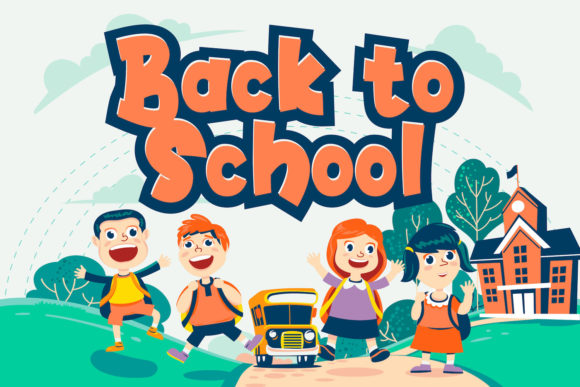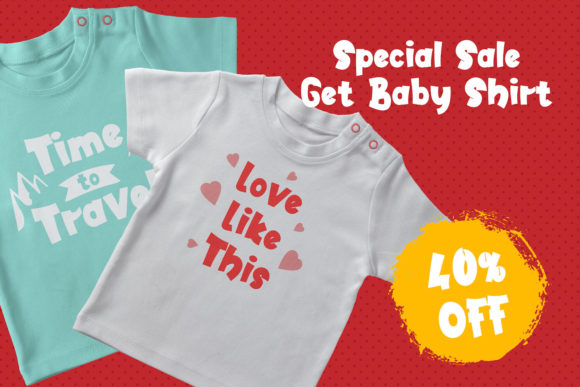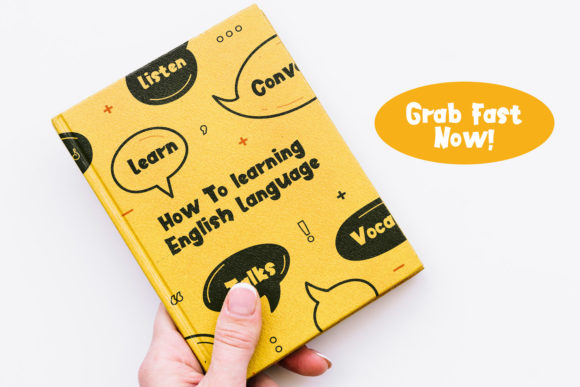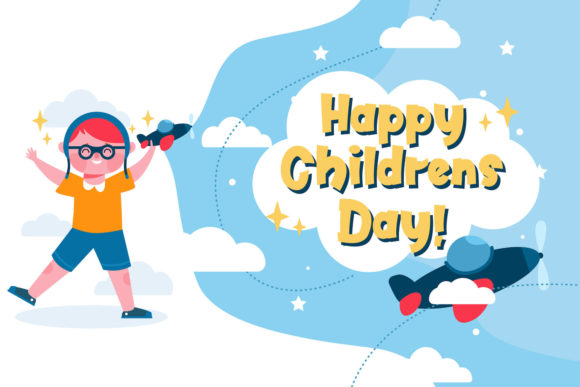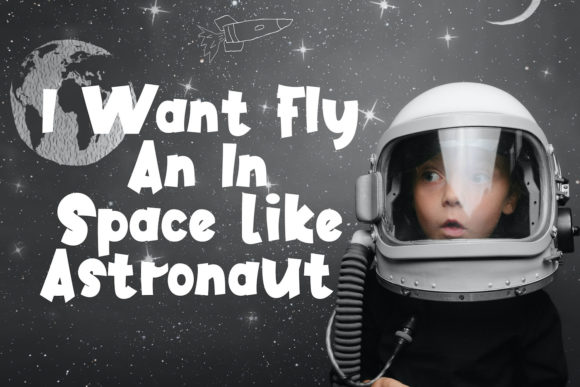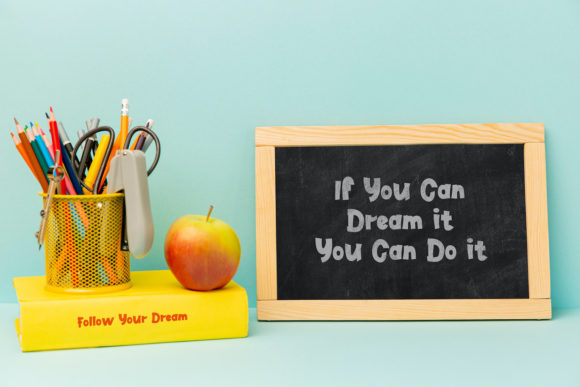
Introducing Amazing Kids Font: The Ultimate Display Font for Joyful Designs
Are you tired of using the same old fonts in your designs? Do you want to add a touch of whimsy and fun to your creative projects? Look no further than Amazing Kids Font, a cute and quirky display font that’s sure to bring a smile to your face. In this article, we’ll dive into the world of Amazing Kids Font and explore how it can elevate your designs to the next level.
The Amazing Kids Font Difference
Amazing Kids Font is a one-of-a-kind display font that’s designed to add a joyful touch to your designs. Its unique and quirky style makes it perfect for designers and crafters who want to create eye-catching and engaging projects. Whether you’re working on a children’s book, a craft project, or a marketing campaign, Amazing Kids Font is the perfect choice.
Key Features of Amazing Kids Font
- Cute and Quirky Style: Amazing Kids Font features a playful and whimsical design that’s sure to delight your audience.
- Display Font: This font is specifically designed for display purposes, making it perfect for headlines, titles, and other attention-grabbing elements.
- Easy to Read: Despite its playful style, Amazing Kids Font is easy to read and understand, making it perfect for use in a variety of design projects.
- Versatile: Amazing Kids Font can be used in a wide range of design projects, from children’s books to marketing materials.
How to Use Amazing Kids Font in Your Designs
- Children’s Books: Add a touch of whimsy to your children’s book with Amazing Kids Font. Use it for titles, headings, and other design elements.
- Craft Projects: Use Amazing Kids Font to add a personal touch to your craft projects. It’s perfect for scrapbooking, card making, and other paper crafts.
- Marketing Materials: Add some fun and personality to your marketing materials with Amazing Kids Font. Use it for headlines, titles, and other attention-grabbing elements.
Tips for Getting the Most Out of Amazing Kids Font
Here are a few tips for getting the most out of Amazing Kids Font:
- Use it Sparingly: While Amazing Kids Font is fun and playful, it can be overwhelming if used too much. Use it sparingly to add emphasis and interest to your designs.
- Pair it with Other Fonts: Amazing Kids Font pairs well with other fonts, such as sans serif fonts and script fonts. Experiment with different font combinations to find the perfect look for your design.
- Experiment with Colors: Amazing Kids Font looks great in a variety of colors. Experiment with different colors and textures to add depth and interest to your designs.